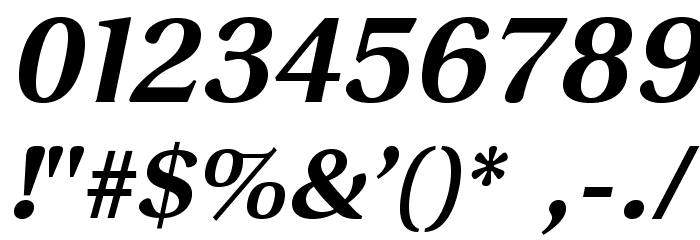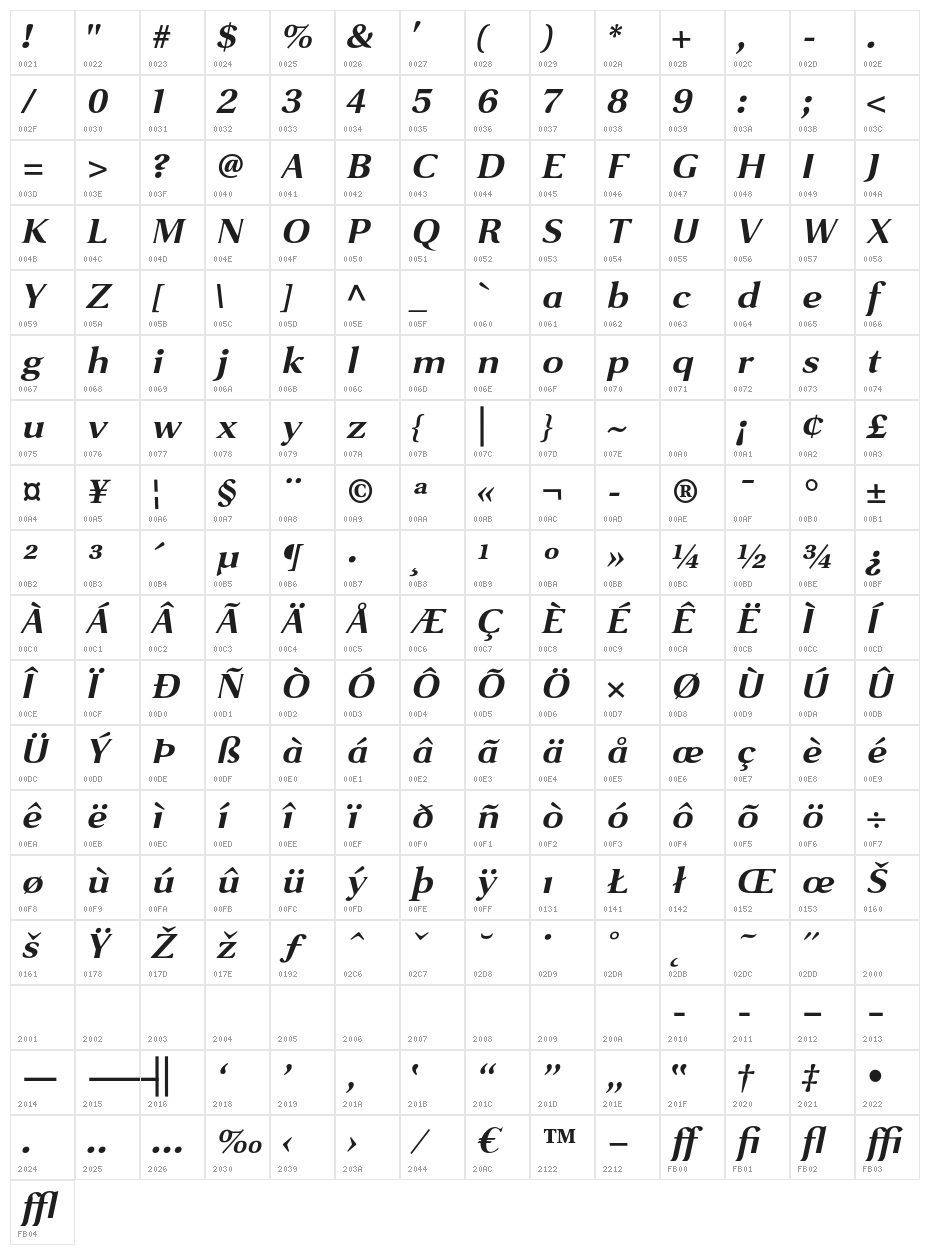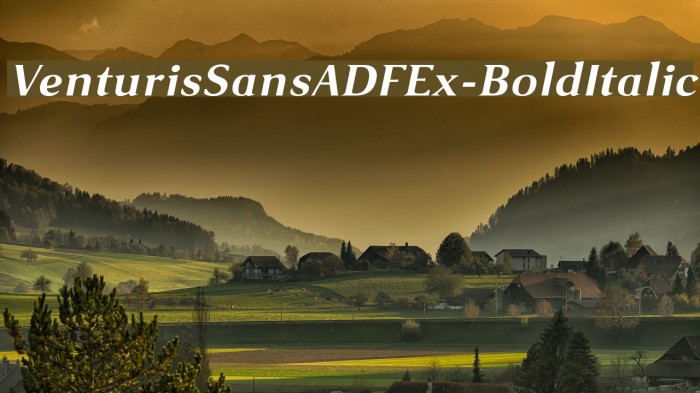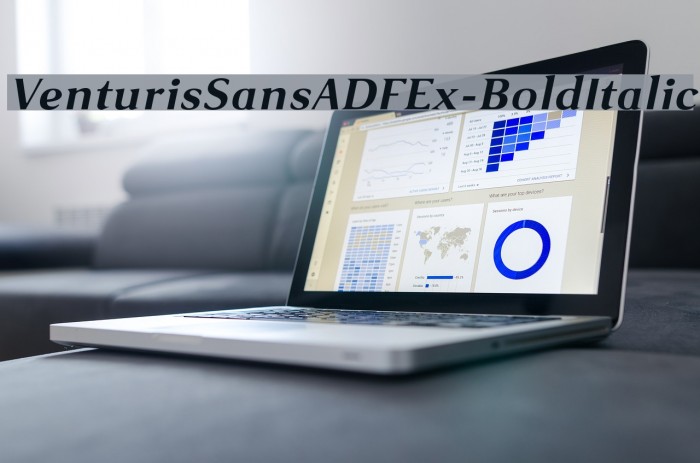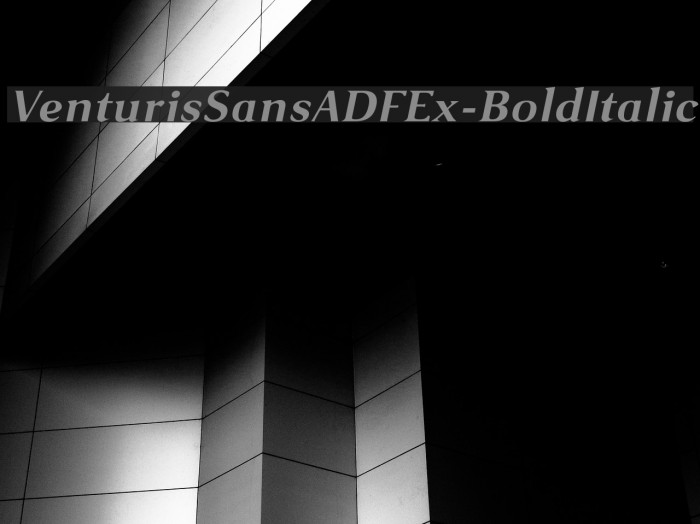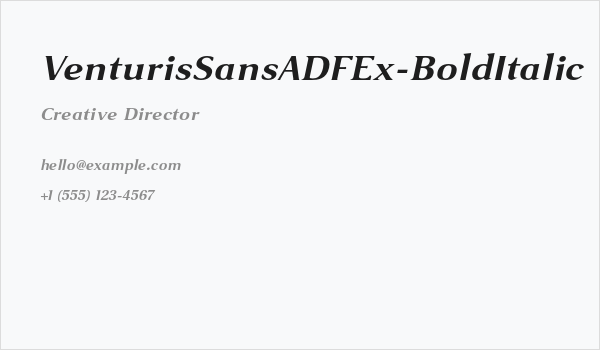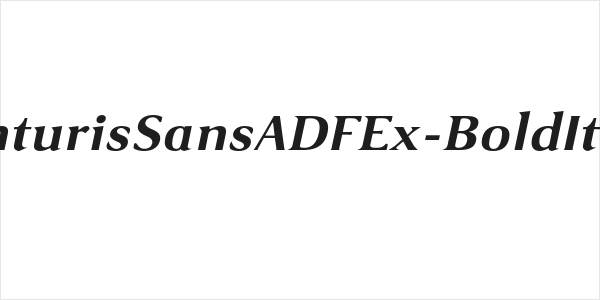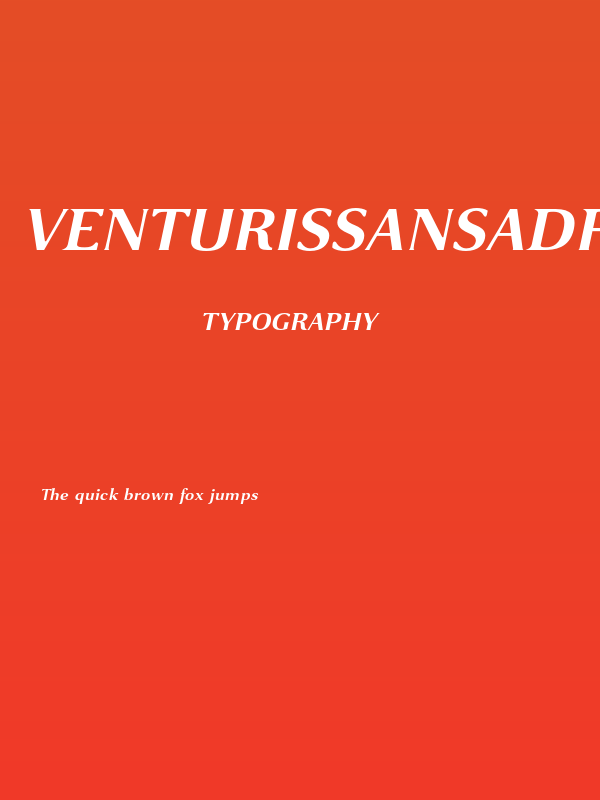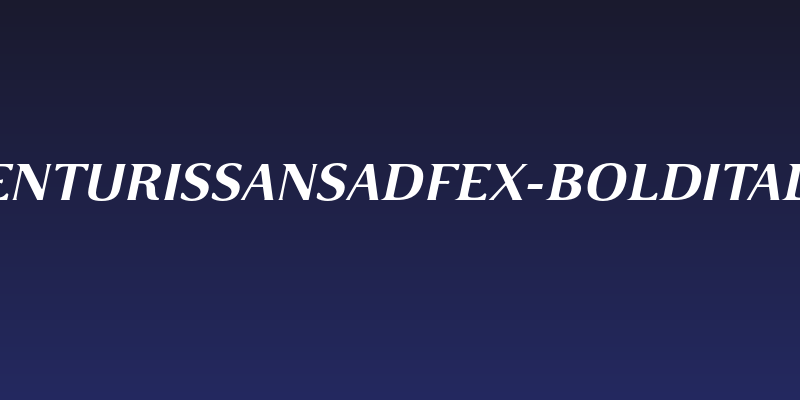
VenturisSansADFEx-BoldItalic Font
VenturisSansADFEx-BoldItalic Description
This font exhibits a bold and italicized style, characterized by its strong presence and dynamic slant. The uppercase letters are elegantly proportioned, with a slight curvature that adds a sense of movement. The lowercase letters maintain a consistent flow, enhancing readability while retaining a stylish flair. Numbers are well-defined and align seamlessly with the overall design. Special characters are crafted with precision, ensuring versatility in various applications. The font's boldness is complemented by its italic nature, making it suitable for impactful and expressive text.